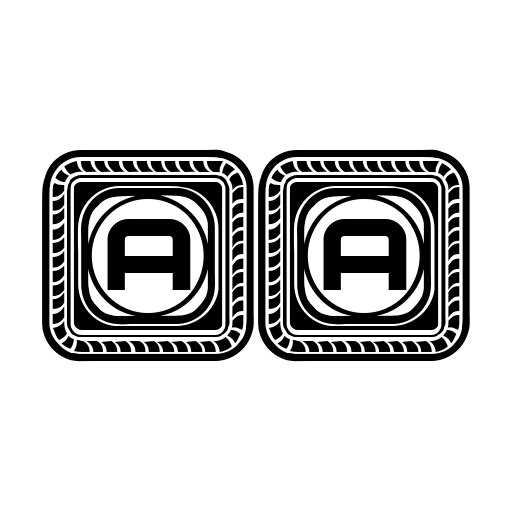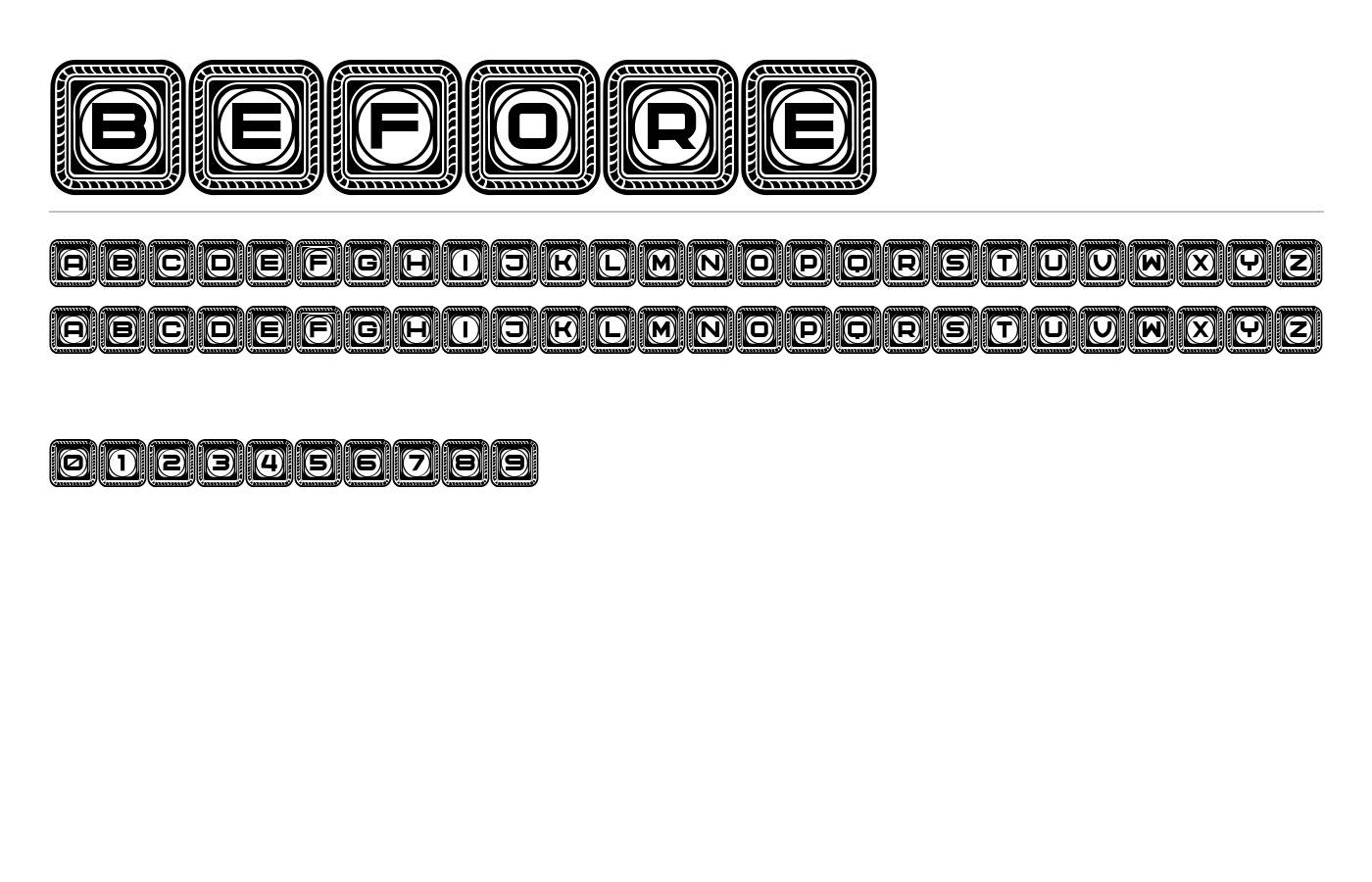
Before Font is a bold, decorative sans serif typeface characterized by its strong geometric letterforms enclosed within ornate, rounded square frames. The font’s unique design blends a modern, structured aesthetic with vintage charm, making it ideal for eye-catching logos, posters, and branding that seek a playful yet sophisticated vibe. Its distinct style works best in large display settings where its intricate detailing can be fully appreciated.
Before Font
About Before Font
| Font family | Before Font |